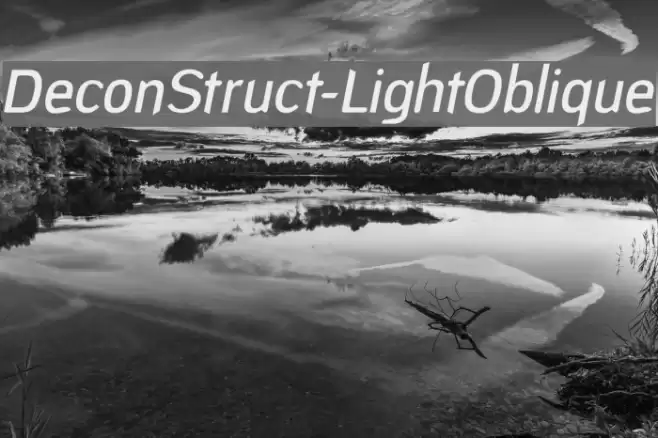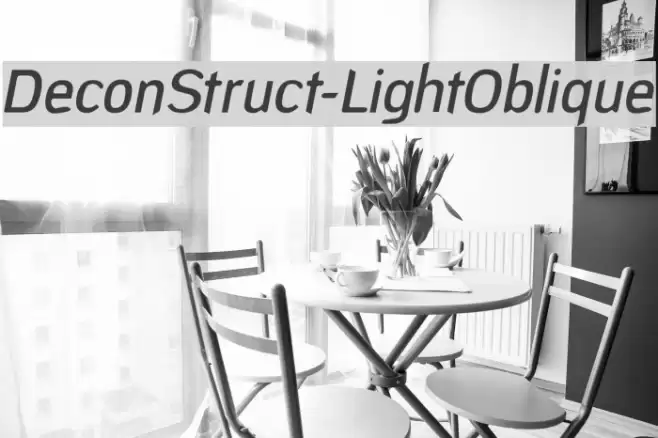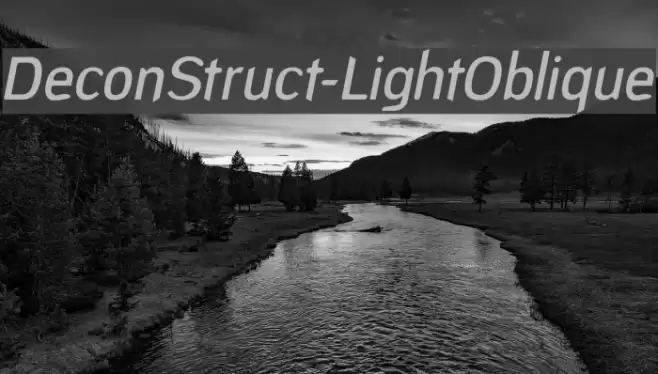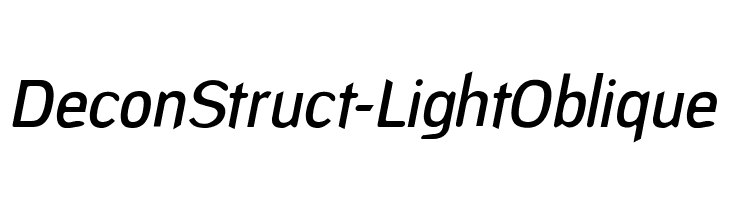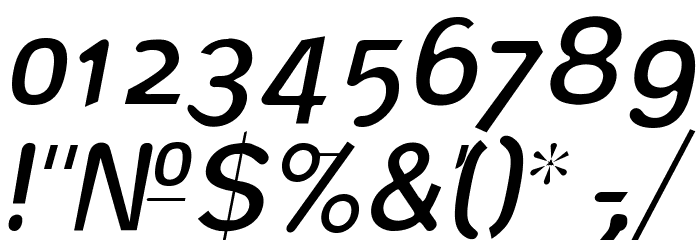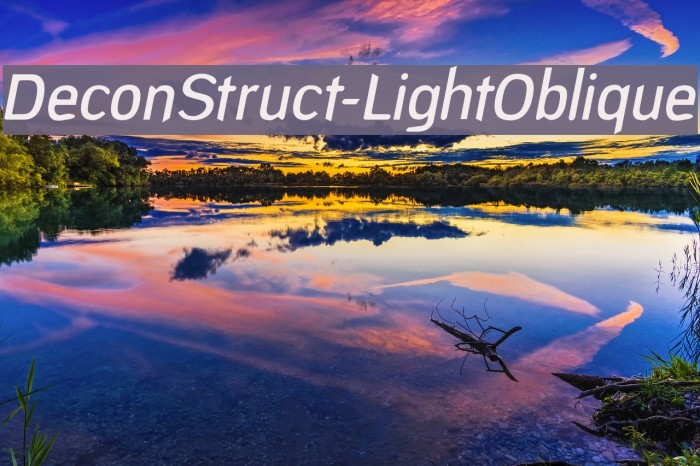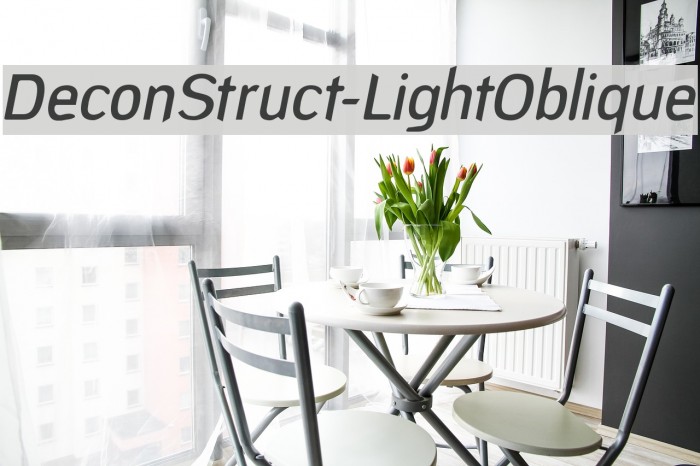
DeconStruct-LightOblique Font
DeconStruct-LightOblique Description
This font features a sleek and modern design with a light oblique style, giving it a dynamic and forward-leaning appearance. The characters are well-defined with a consistent stroke width, contributing to a clean and professional look. The uppercase and lowercase letters maintain a harmonious balance, while the numerals and special characters are crafted to match the overall aesthetic. The font's oblique nature adds a sense of motion and energy, making it suitable for contemporary design projects.
A sleek, modern light oblique font with a dynamic appearance from Uncategorized fonts.
- Proposed Projects: Ideal for branding, advertising, and editorial design where a modern and energetic feel is desired.
- Use Case: Headlines, Logos, Advertising